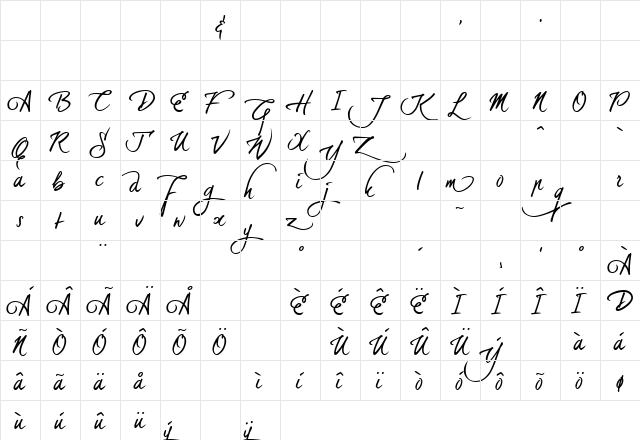
dearJoe 5 alternatives Regular
| Foundry | J O E B O B graphics |
| Designer | J O E B O B graphics - J. van der Ham |
Design Context for dearJoe 5 alternatives Typeface
dearJoe 5 alternatives is a composed and adaptable typeface that performs quietly and consistently across a wide range of design contexts.